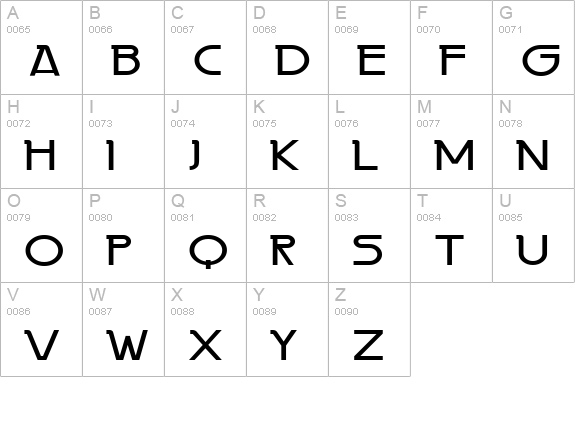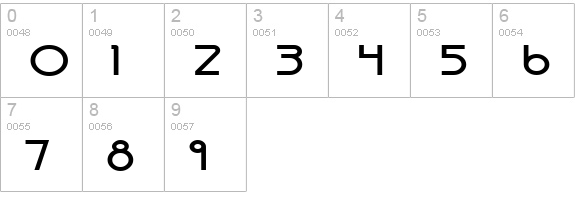
Persia Wide Bold Font Details
Persia Wide Bold is a strong, high-contrast, extended-width variant in the Persia typeface family \xE2\x80\x94 well suited to headlines, attention-grabbing titles, and strong calls-to-action.
Persia Wide Bold font is a stunning typeface that exudes confidence and elegance. With its bold and wide appearance, this font captures attention and makes a bold statement. It is perfect for headlines, titles, logos, and any design project that requires a strong and impactful typeface. The Persia Wide Bold font features clean lines, sharp edges, and a contemporary design that adds a touch of modernity to any visual composition. Its wide letterforms create a sense of stability and presence, making it an ideal choice for designs that need to make a lasting impression. What makes Persia Wide Bold font even more appealing is that it is available for free download at FontsMarket.com. This means that you can access this remarkable font without any cost, making it a valuable asset for designers, creatives, and anyone looking to enhance their projects with a high-quality typeface. Whether you're designing a poster, a brochure, a website, or any visual piece, Persia Wide Bold font will elevate your design to new heights. Its versatility and boldness make it suitable for a wide range of applications, while its free availability ensures that you can access it effortlessly. So why wait? Download Persia Wide Bold font today from FontsMarket.com and unlock the power of this exceptional typeface. Let it empower your designs with its boldness and give your projects a touch of sophistication. With Persia Wide Bold font, you can confidently create stunning visuals that leave a lasting impression on your audience.